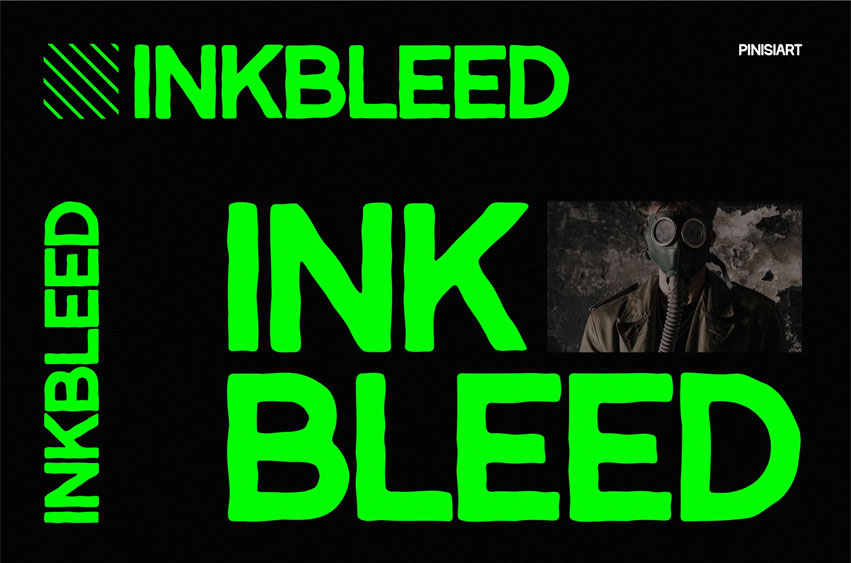
Inkbleed Font
Inkbleed Font is a bold display typeface crafted with sharp terminals, high contrast, and geometric balance. Its rebellious urban vibe makes it a perfect match for music posters, fashion branding, and editorial layouts. The letterforms carry a neon-inspired edge with blocky structure and impactful rhythm, giving your visuals a modern, fearless tone.
With loud proportions and striking presence, Inkbleed stands out in social media campaigns and digital ads where capturing attention is non-negotiable.
Inkbleed thrives in branding, posters, gaming visuals, and event promotions—spaces where designs must stand loud and unapologetic. It taps into the rebellious spirit of youth culture, connecting with audiences who seek boldness, freedom, and disruption. Whether you’re crafting a festival headline, street campaign, or digital launch, Inkbleed delivers the firepower to grab eyes instantly.
• Bold urban energy with sharp, high-impact letterforms
• Geometric display design built for headlines and branding
• Neon-inspired edge for posters, music, and digital visuals
• Works seamlessly across editorial, street culture, and entertainment projects
• Crafted for attention-grabbing layouts